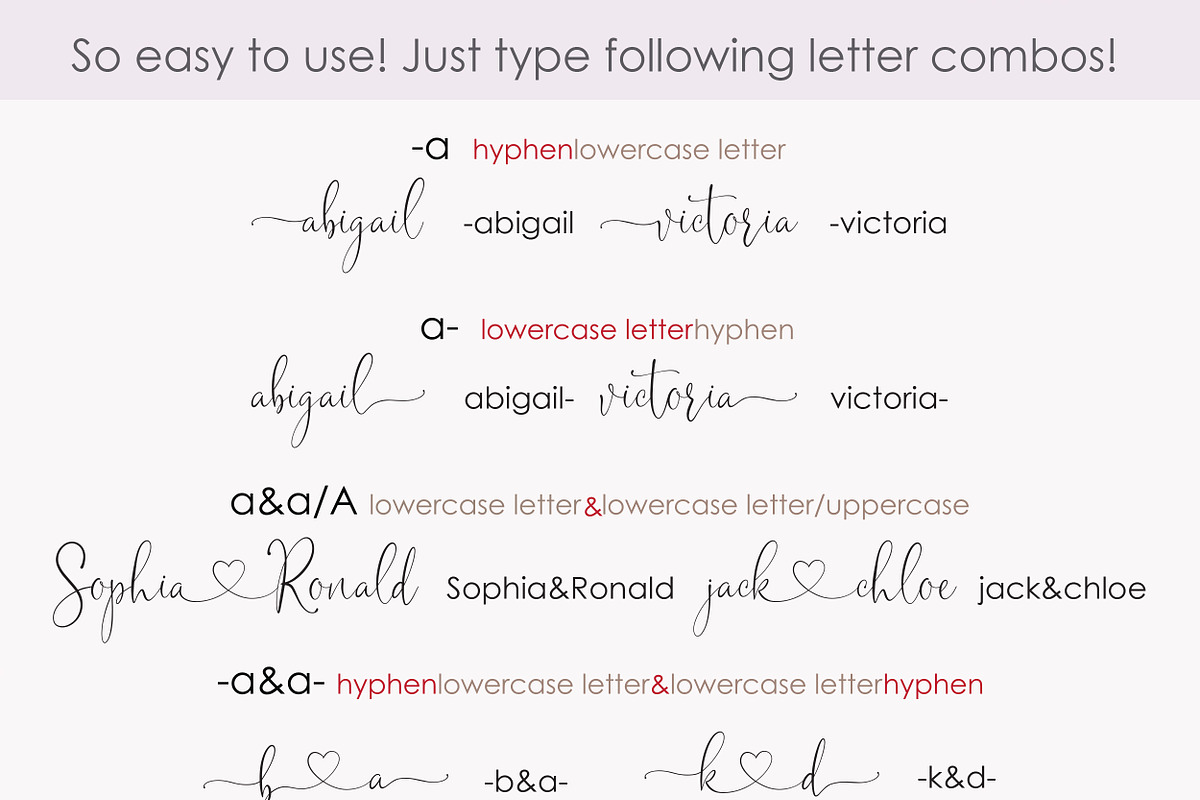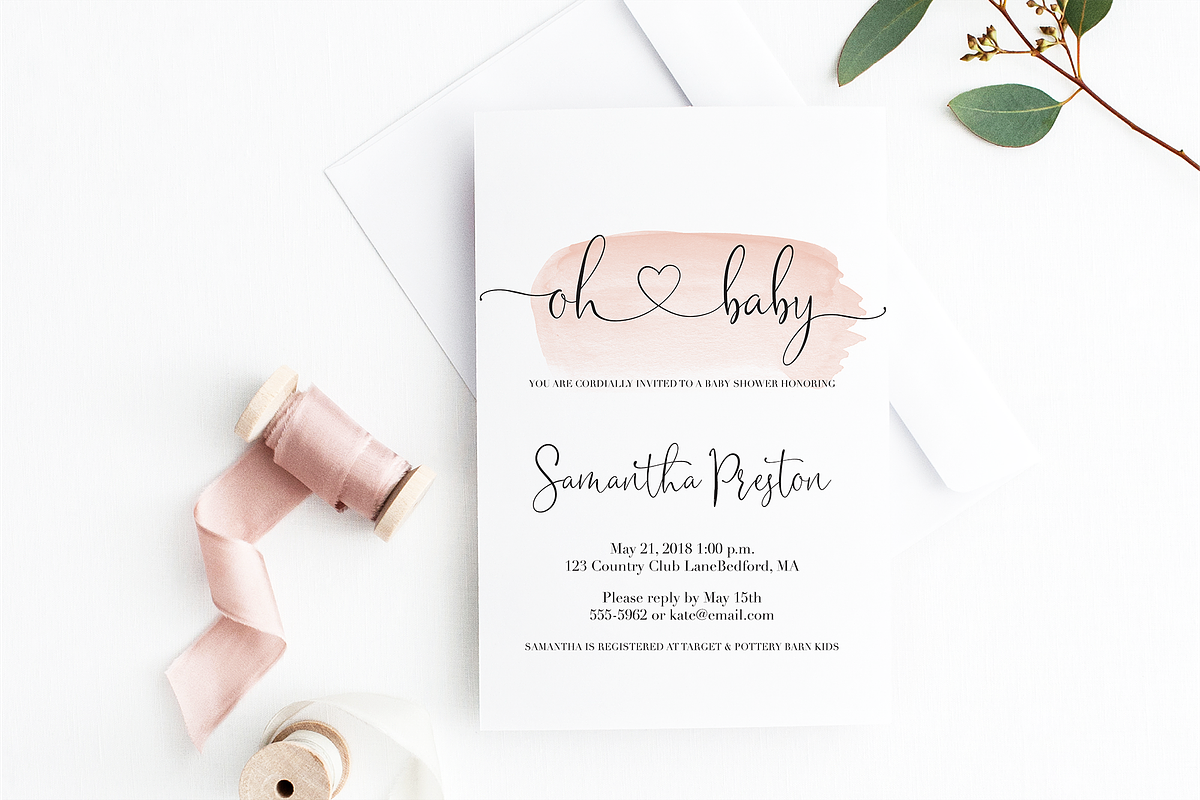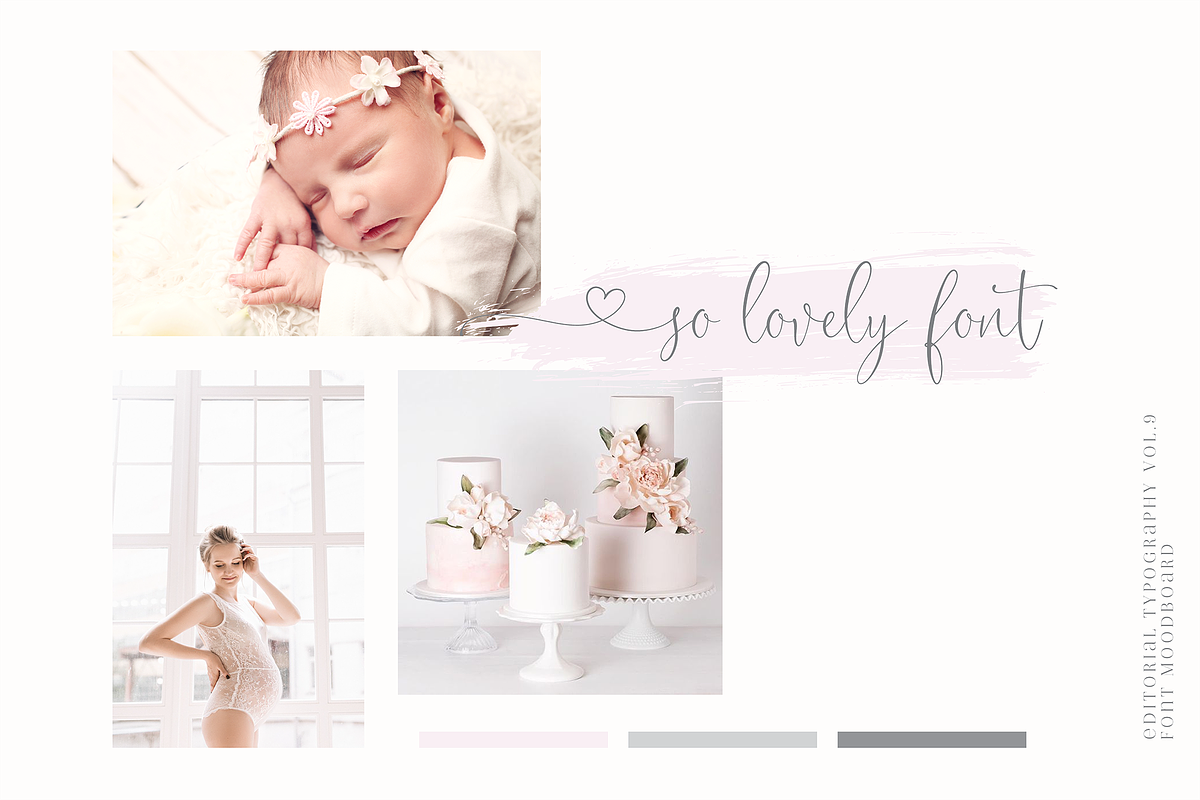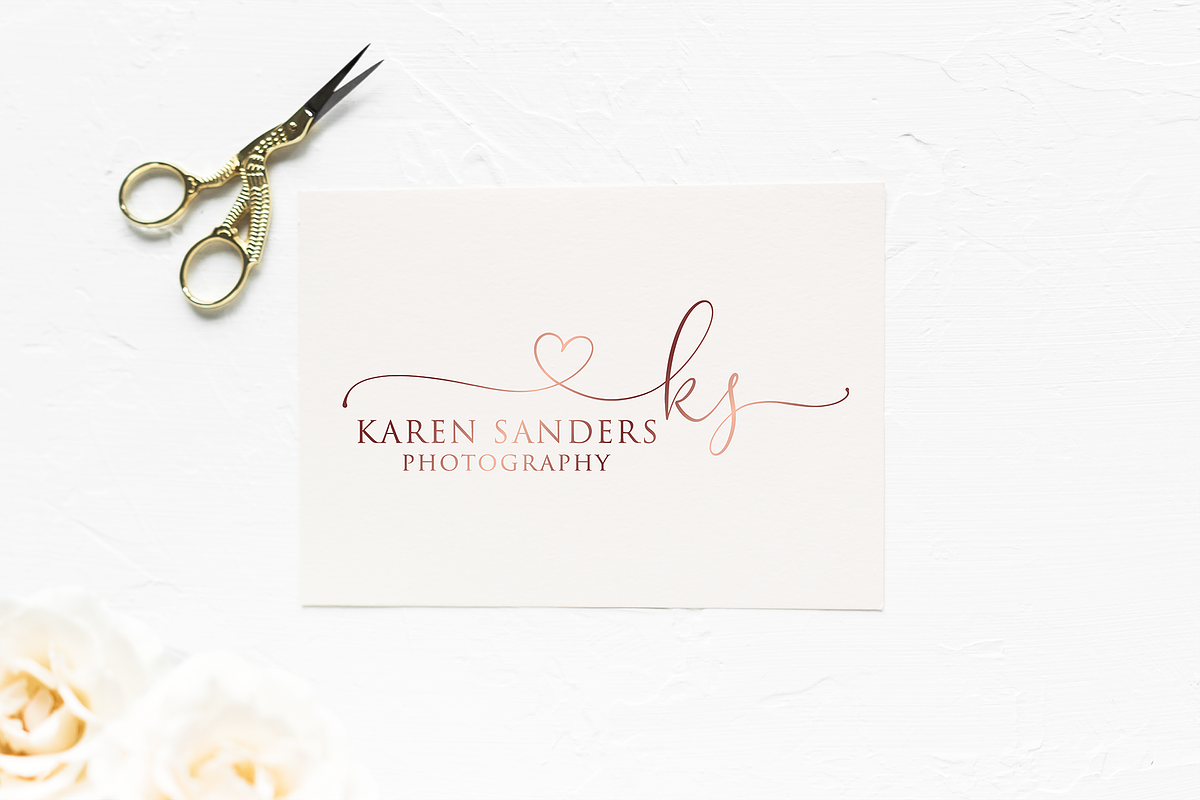
Sophia Ronald Font
Sophia Ronald is a crème de la crème modern calligraphy font with handwritten, sophisticated flows. It is full of hearts and glyphs. It is perfect for branding, wedding invites, and cards.
It includes a full set of lovely uppercase and lowercase letters, multilingual symbols, numerals, punctuation and ligatures. Also it includes: -short lowercase beginning and ending swashes -lowercase ending heart swashes, which serve to connect two words or letters (This is so perfect for invitations, and monograms) -long lowercase beginning and ending heart swashes.
The font has a smooth texture, so it would be perfect for all types of printing techniques can do embroidery, laser-cut, gold foil, etc.